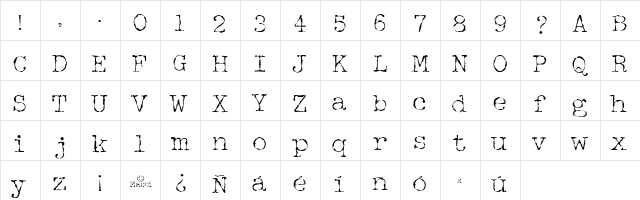
Halbstarke Pica
Design Context for Halbstarke Typeface
Halbstarke takes a measured approach to typography — its balanced proportions and neutral character make it a reliable workhorse for both digital and print work.